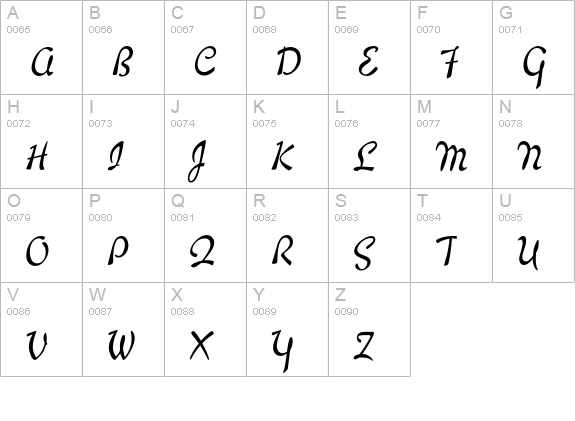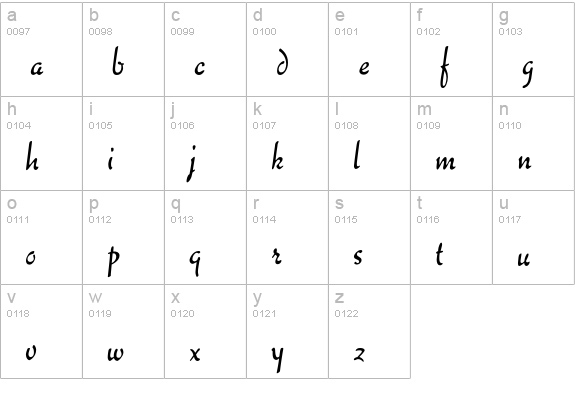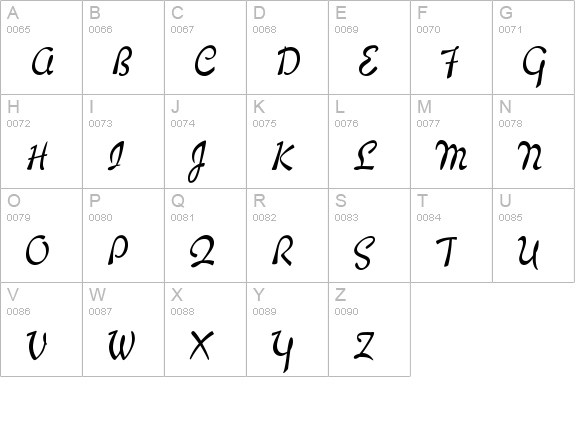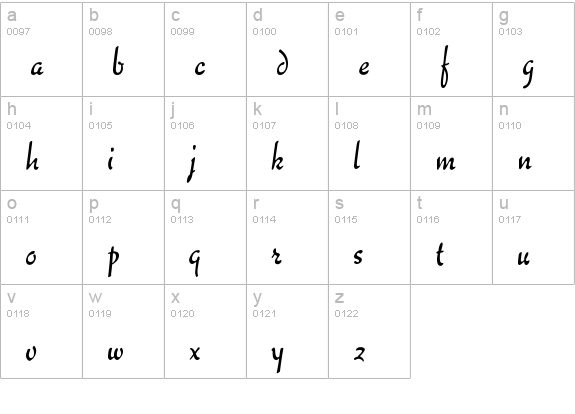
Minneapolis Font Details
Minneapolis font is a beautifully crafted typeface that exudes elegance and sophistication. With its sleek lines and modern design, Minneapolis font is perfect for adding a touch of style to any project. Whether you're creating a logo, designing a website, or crafting a poster, this versatile font will help you stand out from the crowd. What sets Minneapolis font apart is not only its striking aesthetics but also its versatility. This font can be used for a wide range of design projects, from branding to editorial to packaging and more. Its clean lines and sharp edges give it a contemporary feel, making it a great choice for anyone looking to add a modern touch to their designs. Best of all, Minneapolis font is completely free to download at FontsMarket.com. This means that you can start using this stunning font in your projects right away, without having to worry about any additional costs. So why wait? Download Minneapolis font today and take your designs to the next level!